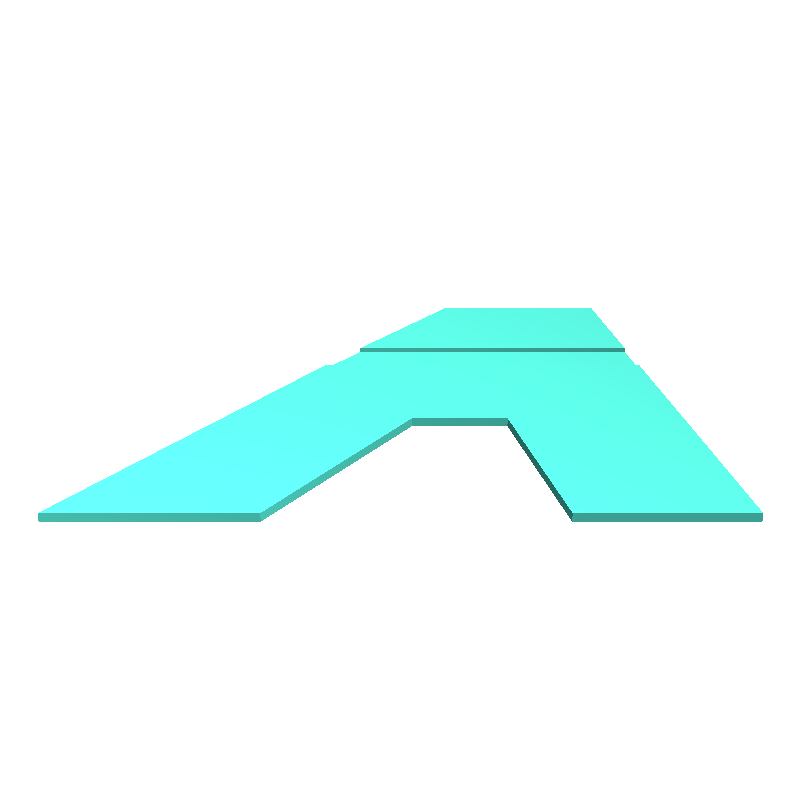
Blade Runner Typeface . You can download the font for free. the font used in the title of blade runner is very similar to blade runner movie font designed by phil steinschneider. blade runner is a movie that was released in 1982, and another bladerunner in 2017. Click now to create a custom image with your own words that you can download. the iconic typeface used in the film blade runner has become synonymous with the dystopian future it portrays. it’s based on the logo lettering used in the original blade runner film, and this logotype has become a popular typeface for designers and fans of. free download of blade runner movie font. Blade runner movie font is free for both personel and. capturing a more energetic quality than others due to its creative and modern style, blade runner movie font is bound to pull.
blade runner is a movie that was released in 1982, and another bladerunner in 2017. the iconic typeface used in the film blade runner has become synonymous with the dystopian future it portrays. Blade runner movie font is free for both personel and. free download of blade runner movie font. the font used in the title of blade runner is very similar to blade runner movie font designed by phil steinschneider. Click now to create a custom image with your own words that you can download. capturing a more energetic quality than others due to its creative and modern style, blade runner movie font is bound to pull. it’s based on the logo lettering used in the original blade runner film, and this logotype has become a popular typeface for designers and fans of. You can download the font for free.
Blade Runner Typeface Blade runner movie font is free for both personel and. You can download the font for free. it’s based on the logo lettering used in the original blade runner film, and this logotype has become a popular typeface for designers and fans of. free download of blade runner movie font. Blade runner movie font is free for both personel and. the iconic typeface used in the film blade runner has become synonymous with the dystopian future it portrays. capturing a more energetic quality than others due to its creative and modern style, blade runner movie font is bound to pull. blade runner is a movie that was released in 1982, and another bladerunner in 2017. Click now to create a custom image with your own words that you can download. the font used in the title of blade runner is very similar to blade runner movie font designed by phil steinschneider.